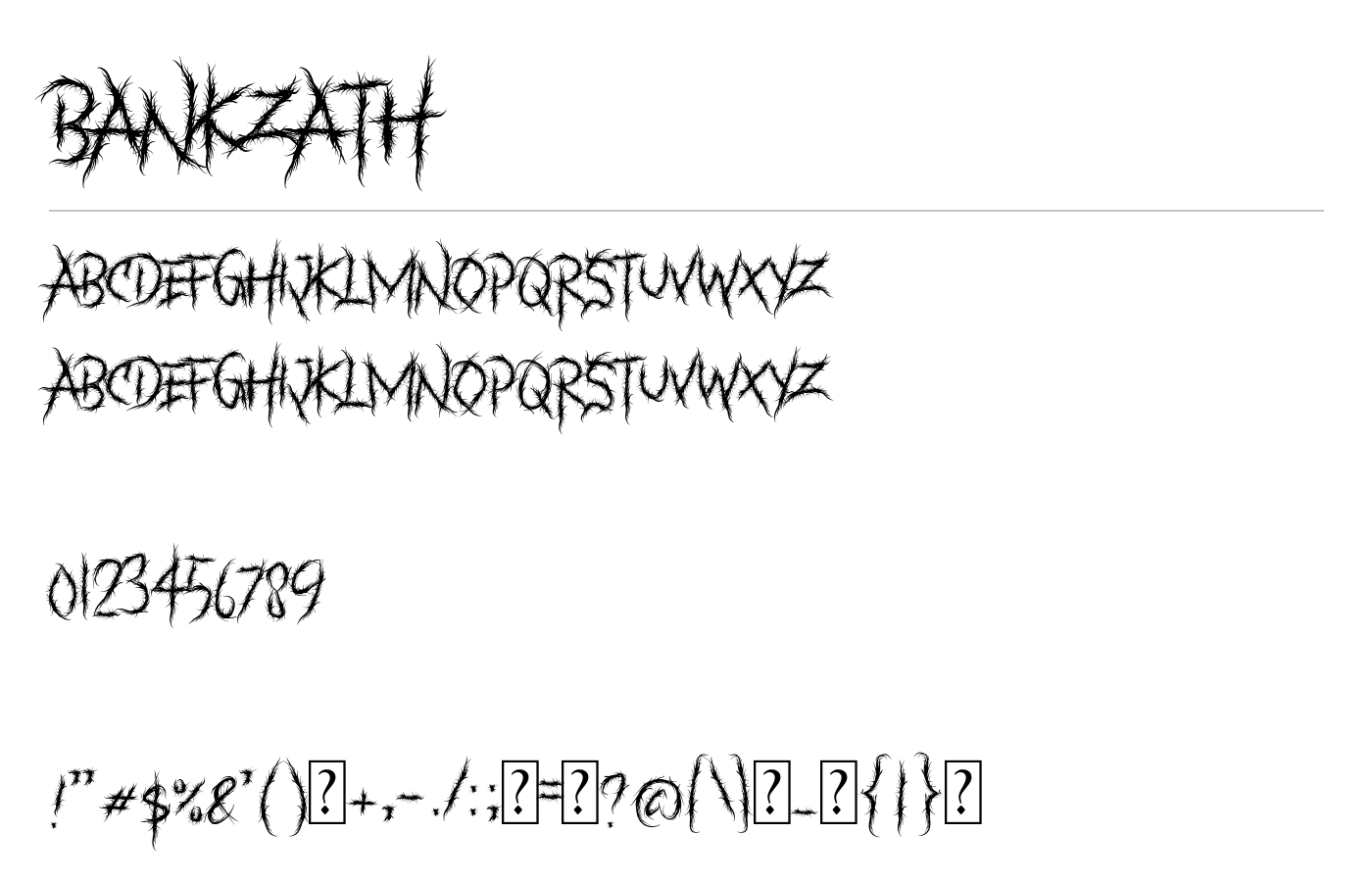
BANKZATH is a highly decorative, distressed display font with a sharp, thorn-like texture that creates an intense, edgy effect. Its narrow, irregular stroke style and uppercase-only letterforms convey a dark, rebellious personality, making it ideal for horror, metal music, or extreme sports branding. This font works best in headlines or logos where a bold, impactful, and unconventional look is desired.
BANKZATH Font
About BANKZATH Font